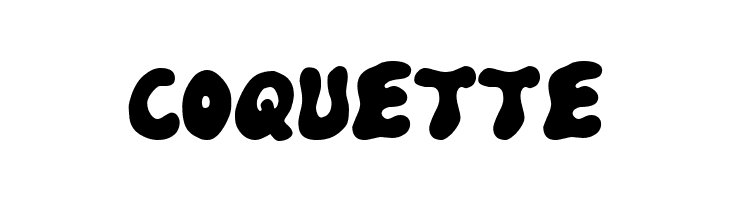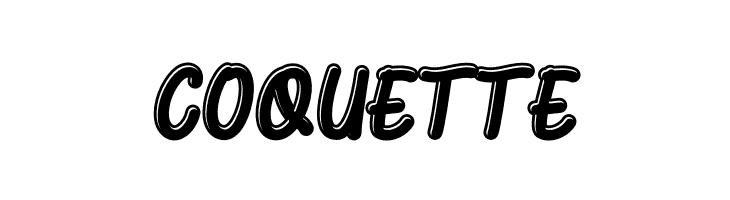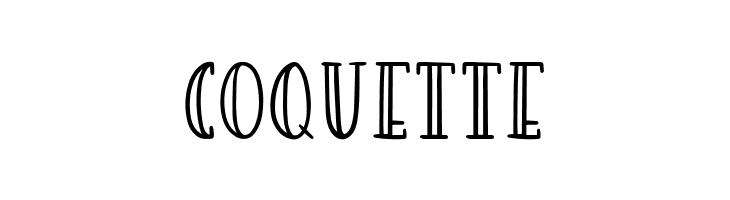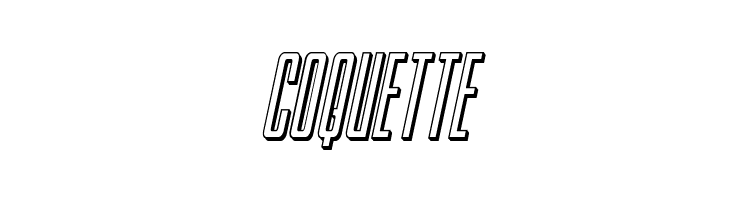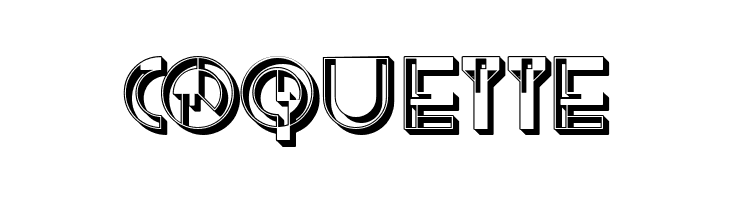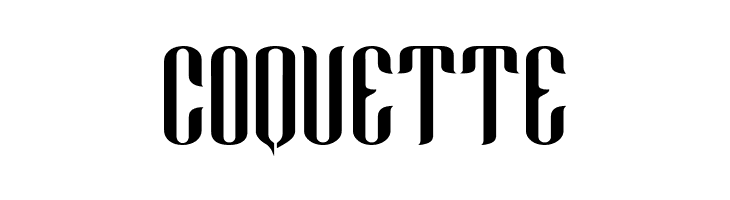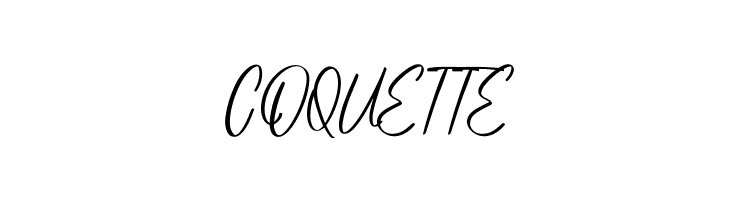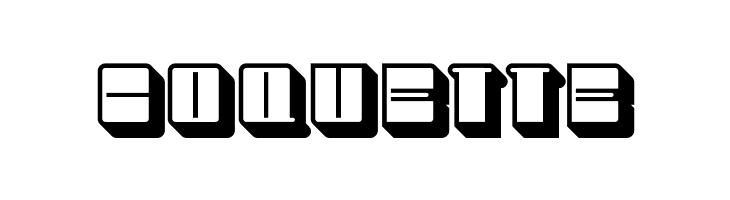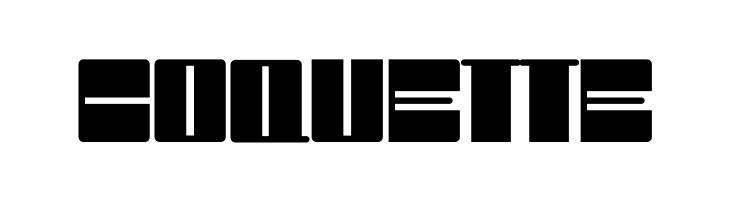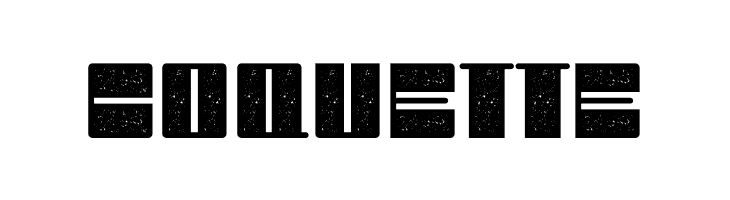
A lively, flowing script font with elegant curves and connected strokes.
A modern, geometric sans-serif font with consistent stroke width and balanced proportions.
A modern, geometric font with clean lines and an open feel.
A playful, rounded font with bold, uniform strokes and a friendly appearance.
A playful, rounded font with smooth curves and consistent stroke width.
A modern geometric font with clean lines and rounded edges.
A bold, modern font with geometric and rounded elements.
A bold, italic font with a modern and dynamic style.
A modern, italicized font with sleek, elongated characters and smooth curves.
A playful, handwritten-style font with bold, rounded characters.
A playful and whimsical script font with bold, flowing letterforms.
A modern, geometric sans-serif font with a clean and versatile design.
A flowing, cursive script font with elegant, sweeping strokes.
A bold, cursive font with a flowing, handwritten style.
A bold, flowing script font with elegant, cursive letterforms.
A playful, rounded font with smooth curves and consistent stroke width.
A bold, geometric font with angular, block-like characters.
A modern, decorative font with geometric line patterns creating an abstract appearance.
A bold, expressive script font with high contrast and decorative flourishes.
A bold, decorative font with playful cursive elements and ornate details.
A bold, playful font with a 3D extruded effect and script-like connected characters.
A bold script font with a dynamic shadow effect, perfect for impactful designs.
A playful, handwritten script font with a whimsical style.
An elegant script font with flowing, cursive style and intricate swashes.
A cursive, italic font with a flowing, elegant style.
A playful and whimsical font with rounded, irregular letterforms and lively strokes.
A lively, expressive handwritten font with fluid, cursive strokes.
A lively and expressive handwritten font with fluid, cursive letterforms.
A decorative and whimsical font with elongated serifs and a playful style.
A modern serif font with high contrast and elegant, elongated strokes.
A modern, elegant font with thin, elongated strokes and high contrast.
A modern, cursive font with elegant, flowing strokes and a slight slant.
A bold, playful, and bubbly font with a cartoonish, balloon-like appearance.
A bold, brush-stroke font with an energetic and artistic style.
A decorative font with interconnected dots and splatters, resembling ink blots.